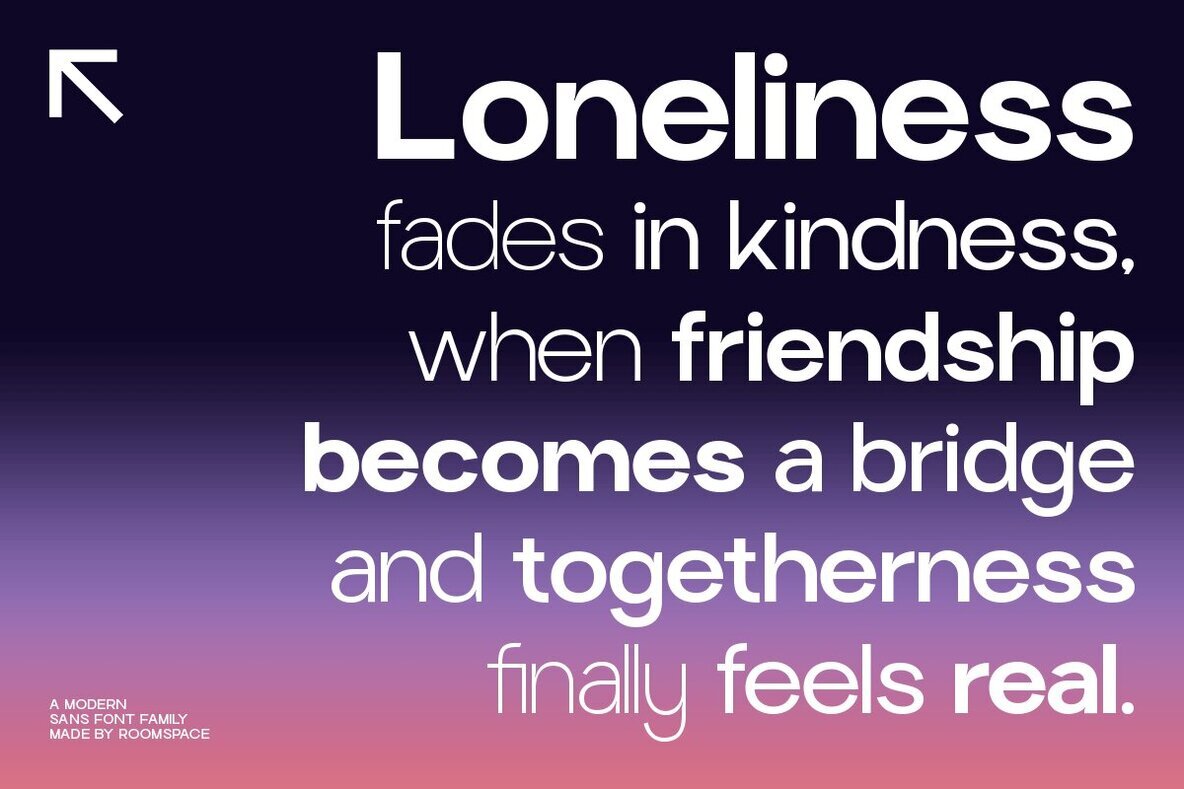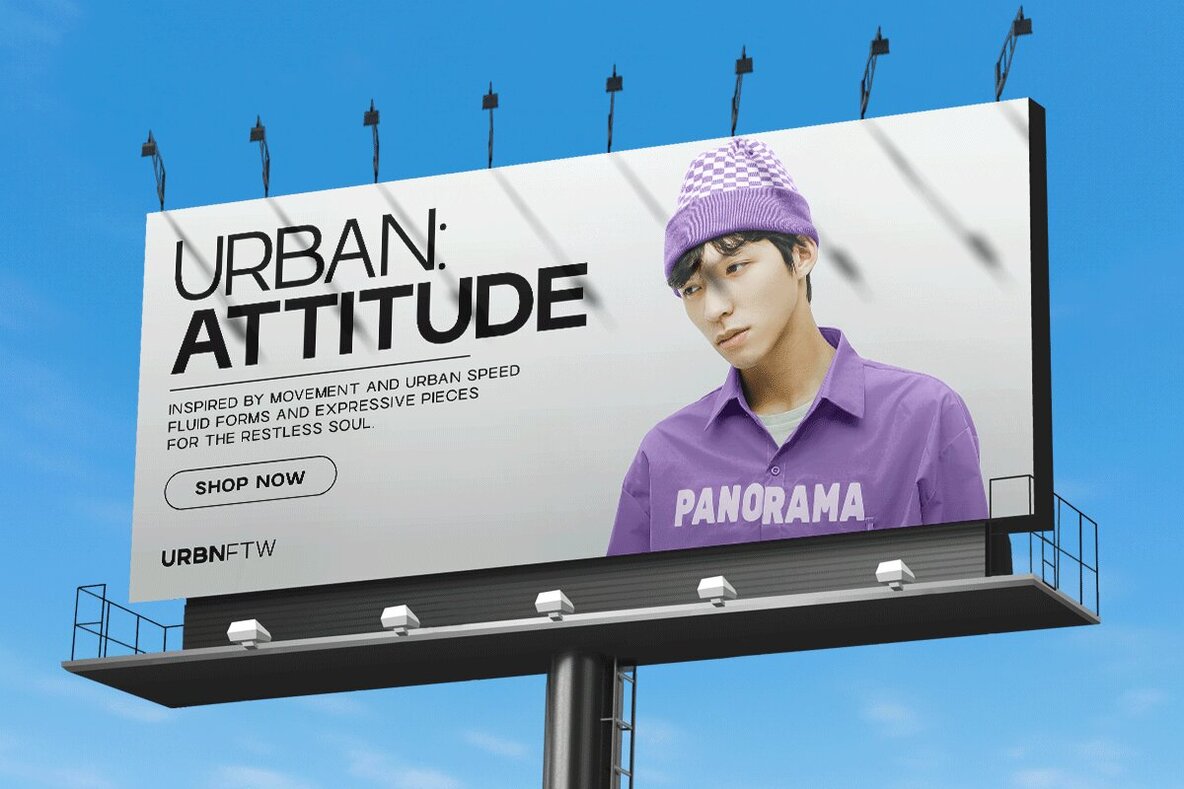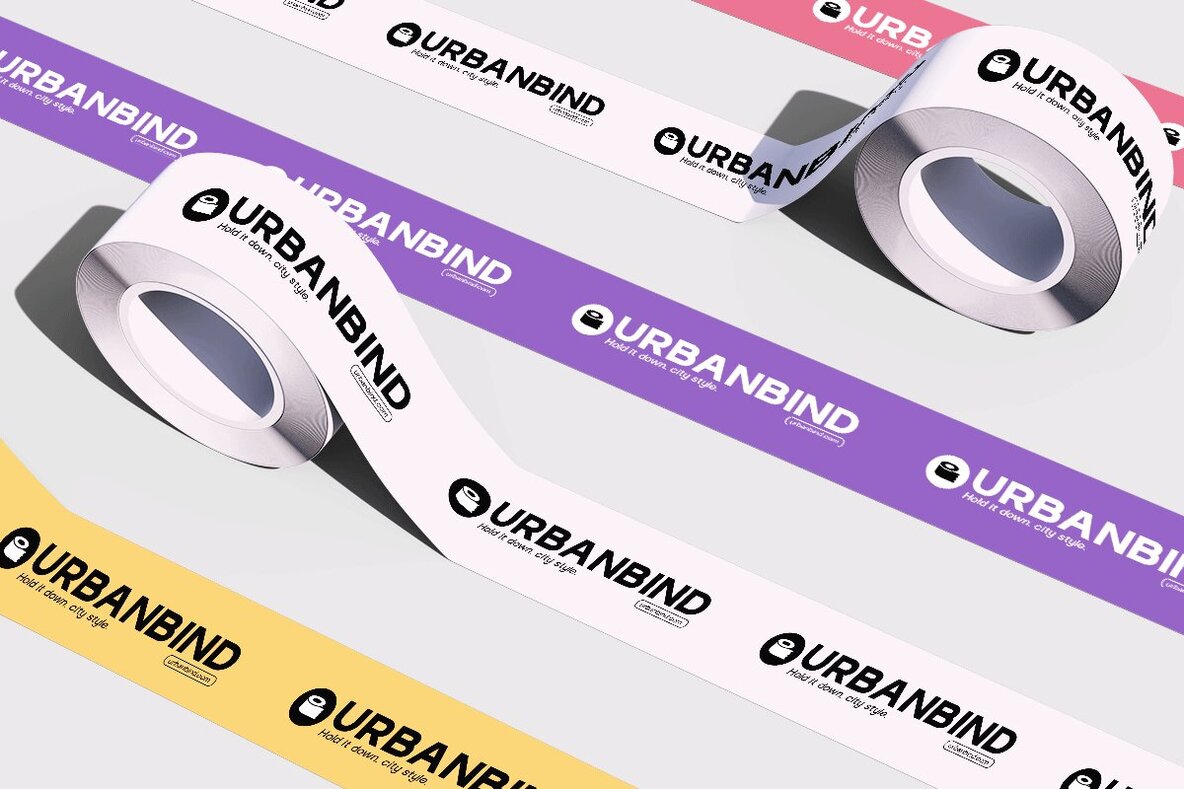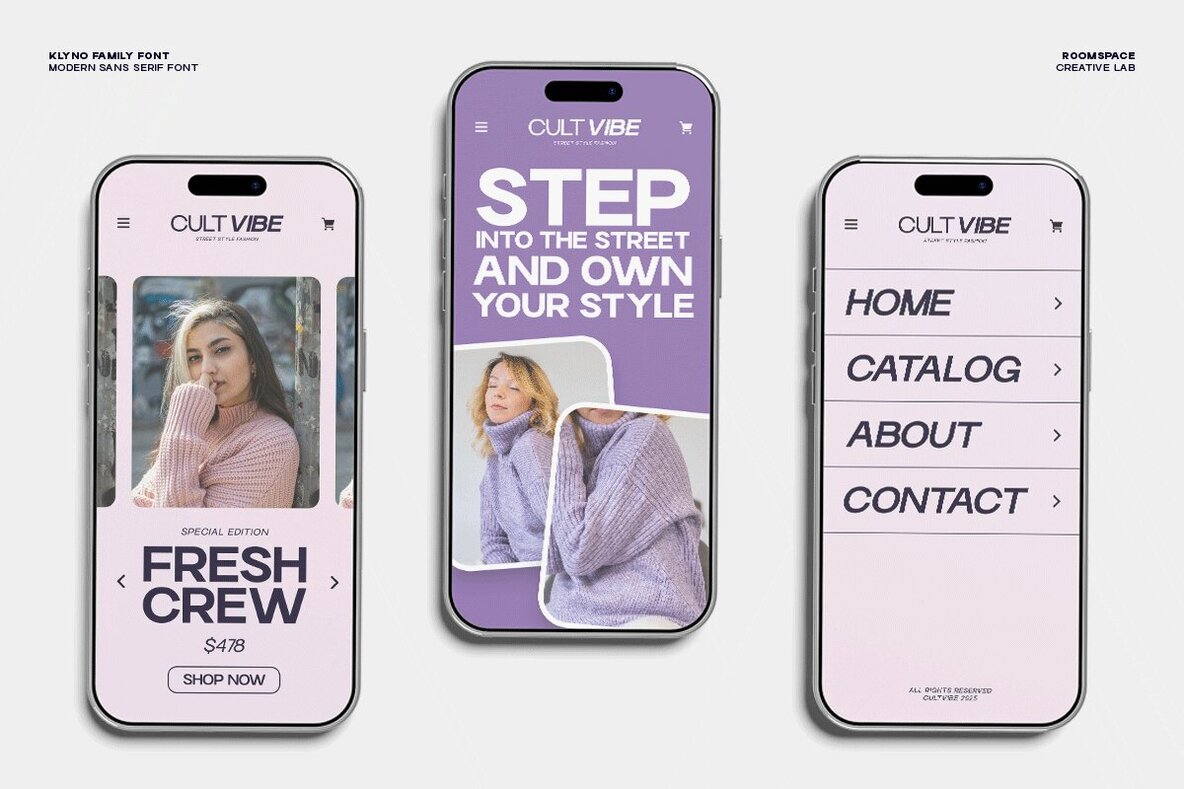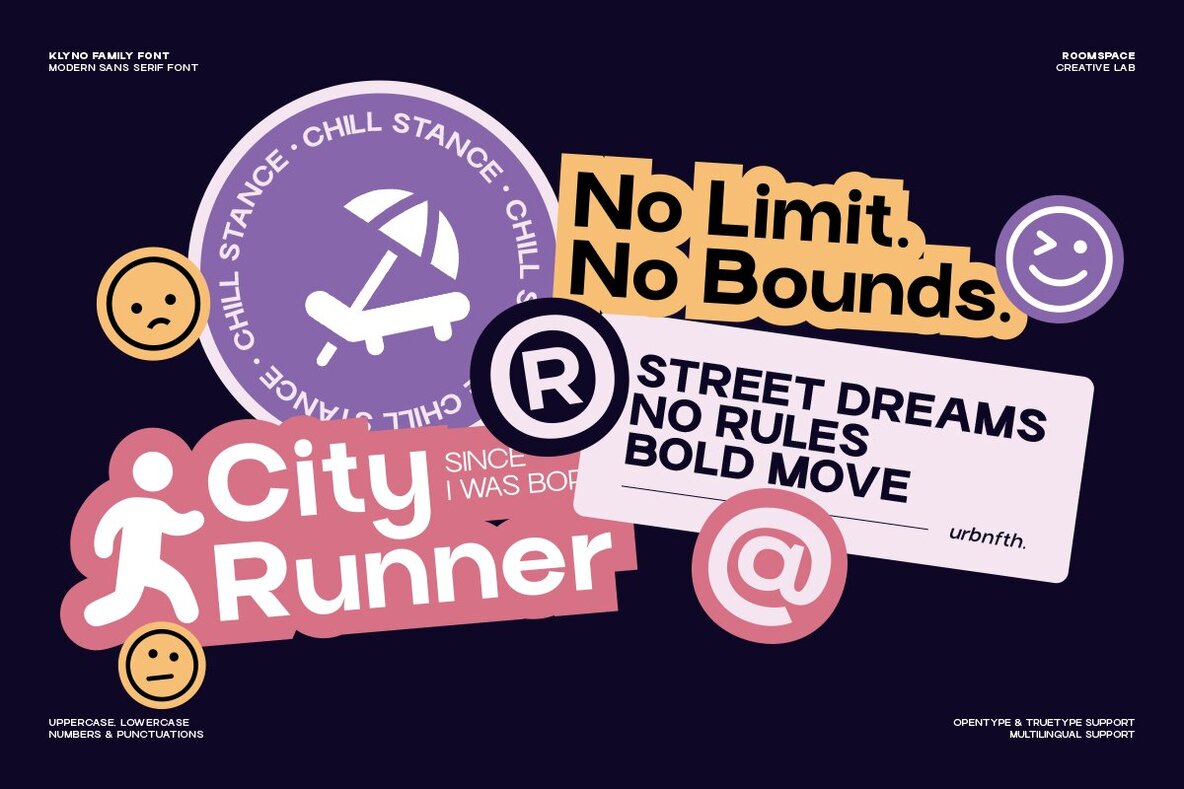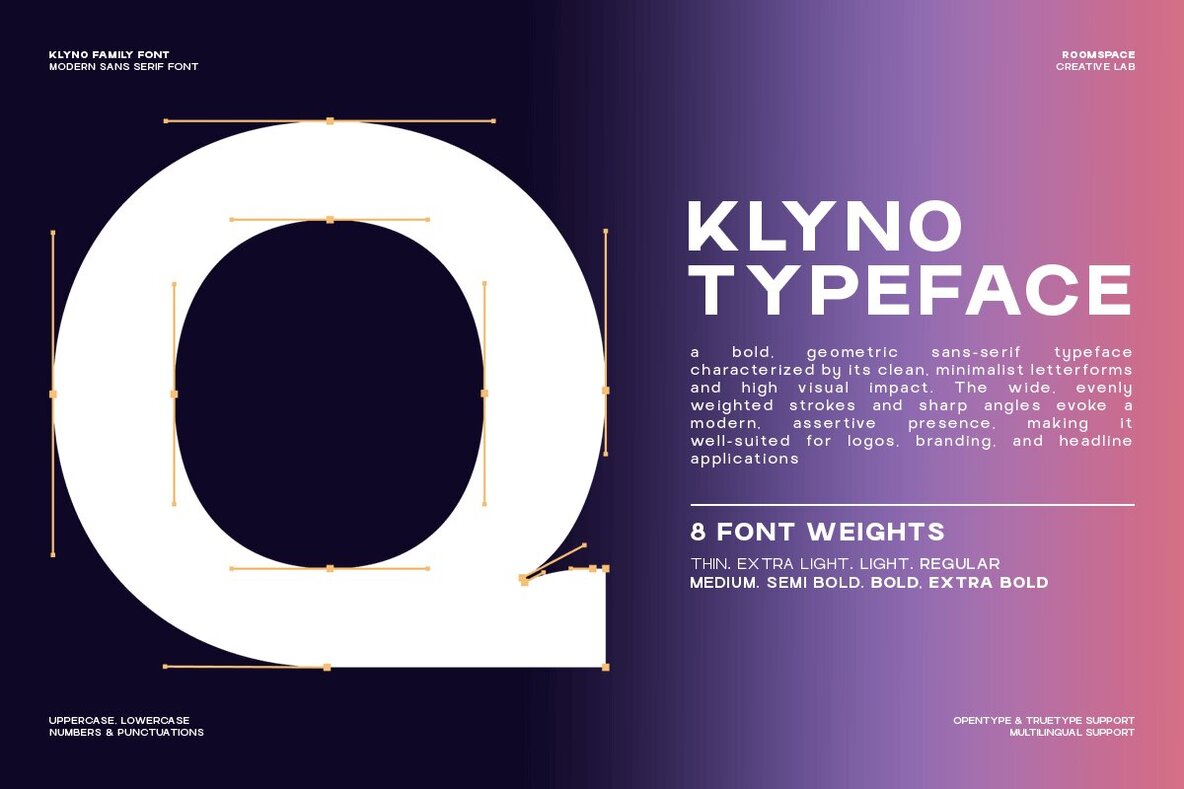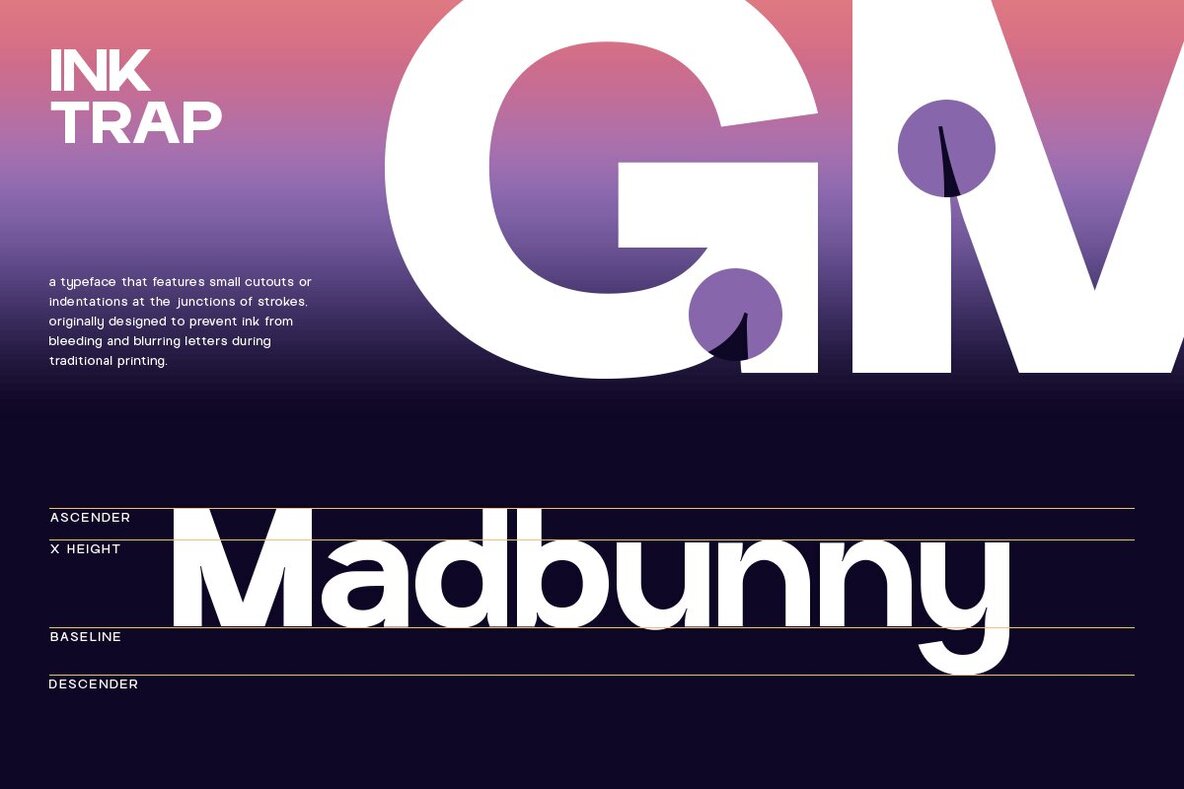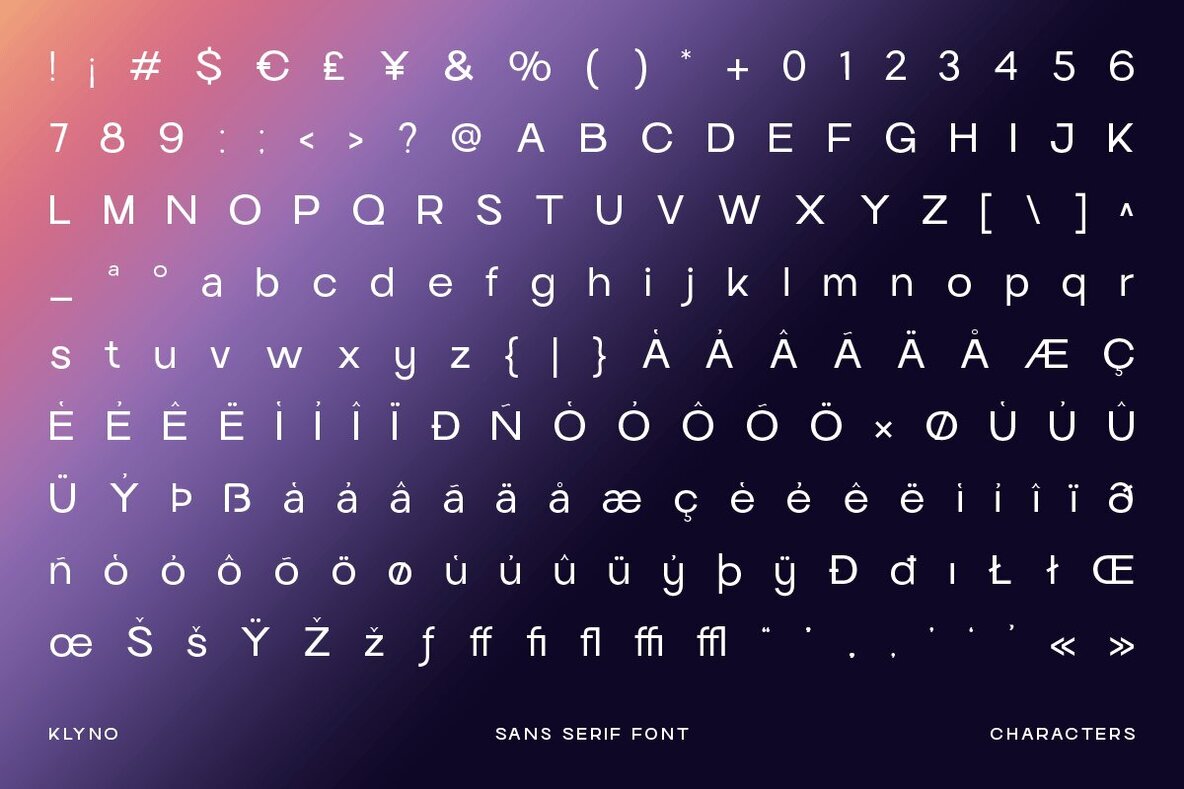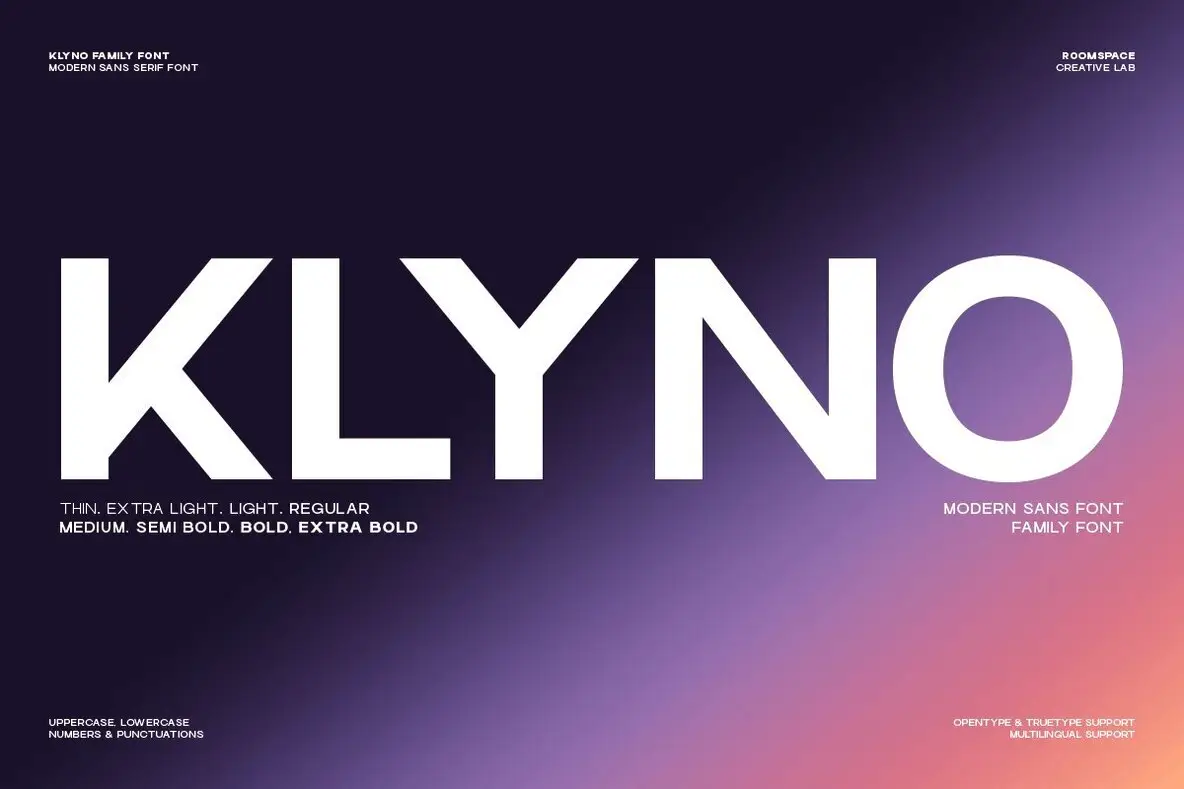
Klyno Font
Klyno is a geometric sans serif font family focused on clarity and structure, designed to deliver a consistent visual presence across a broad range of applications. With eight weights from Thin to Extra Bold, this typeface balances minimalism with strong readability. Its precise geometry supports both branding systems and detailed editorial layouts, making it a logical choice for UI and UX interfaces as well as impactful digital content. Klyno’s refined forms maintain legibility across various sizes and backgrounds, responding well to the demands of contemporary design. Its comprehensive suite of weights allows flexibility for everything from corporate identities to posters and digital products.Klyno: Geometric Sans Serif for Clear Visual Identity